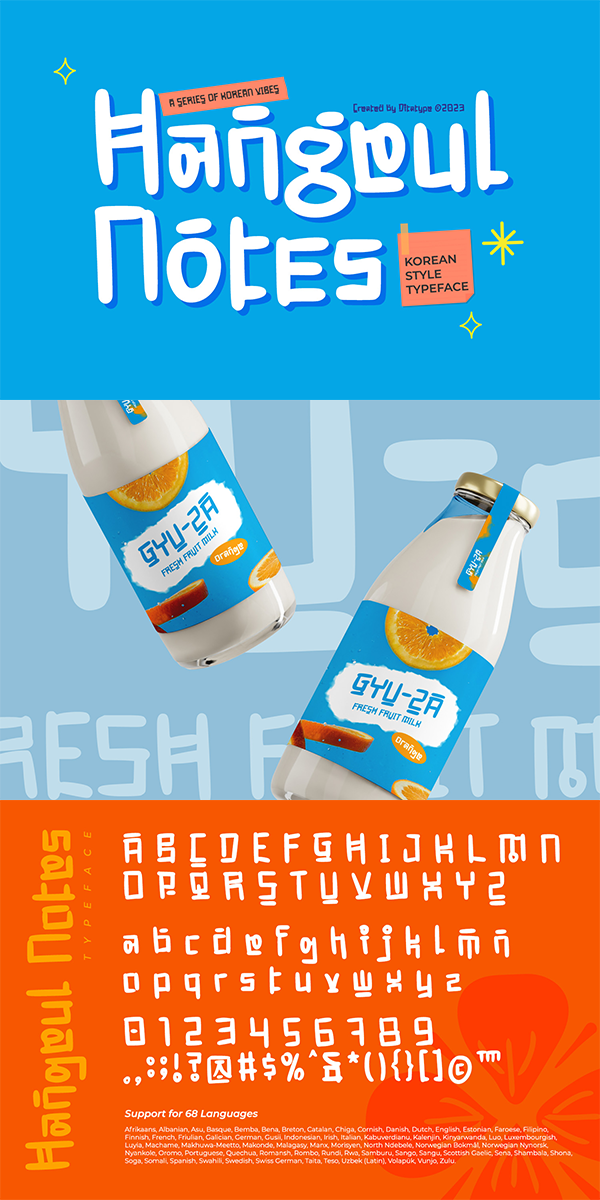
Hangeul Notes Font
About Hangeul Notes
Hangeul Notes is a delightful display font that harmonizes modern design with the elegance of Hangeul characters. This font embodies a perfect fusion of readability and style, delivering a distinctly Korean touch that adds charm to any creative endeavor.
The characters in Hangeul Notes are crafted with a fairly thick weight, ensuring a bold and confident presence. The rounded shapes contribute to a friendly and approachable aesthetic, creating a visual rhythm that mirrors the grace found in Korean design. Hangeul Notes is not just a font; it’s a celebration of the beauty of the Korean script. In addition, enjoy the features here.
Hangeul Notes fits in headlines, logos, posters, flyers, branding materials, greeting cards, print media, editorial layouts, and many more designs. Find out more ways to use this font by taking a look at the font preview.